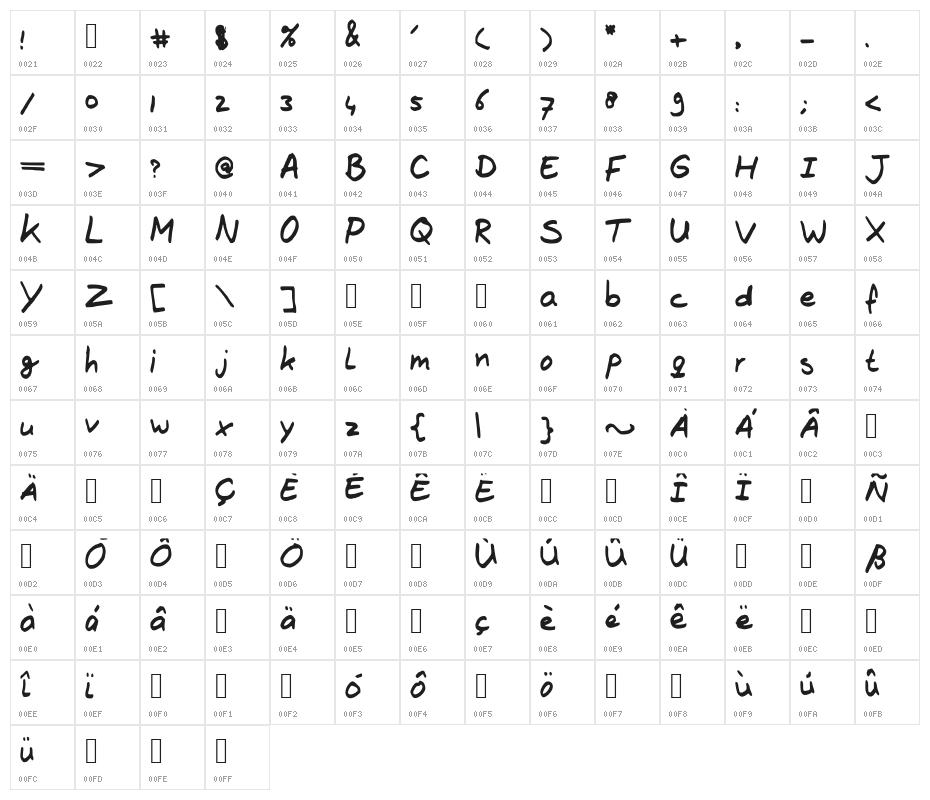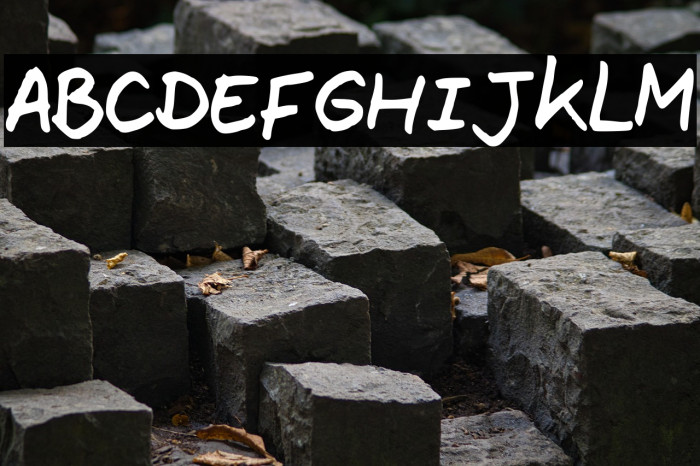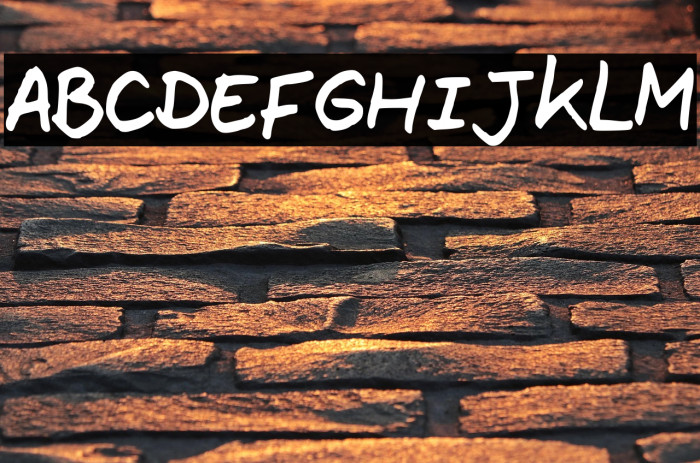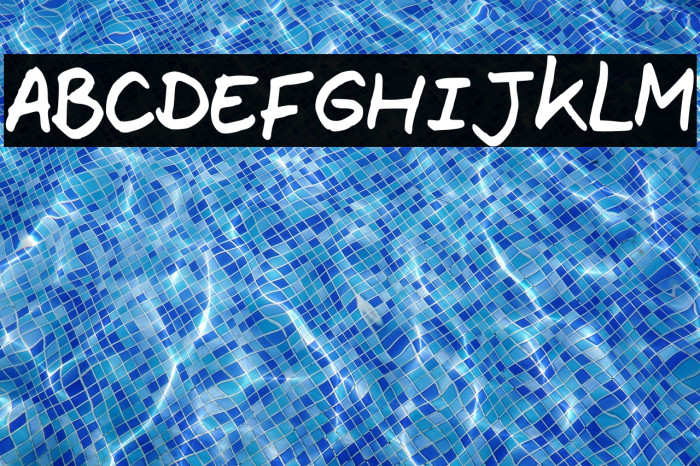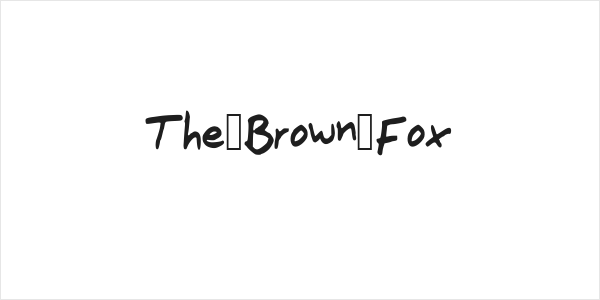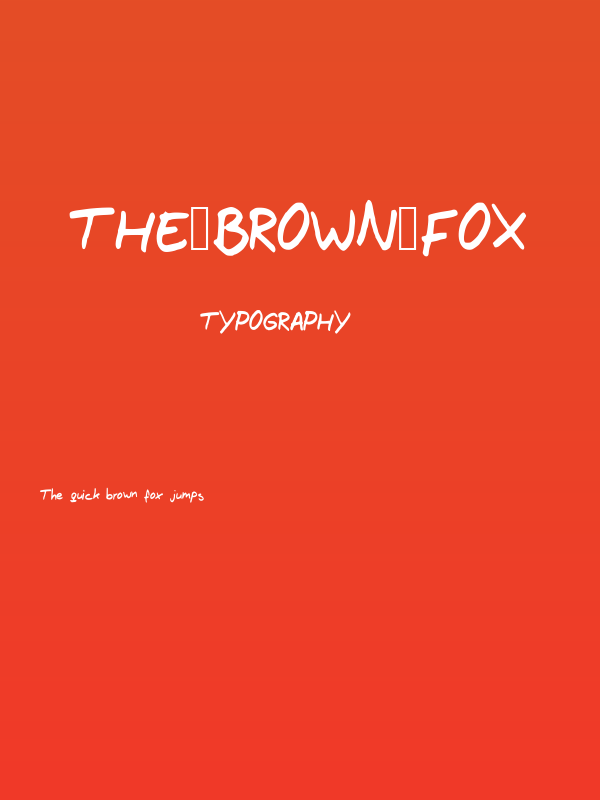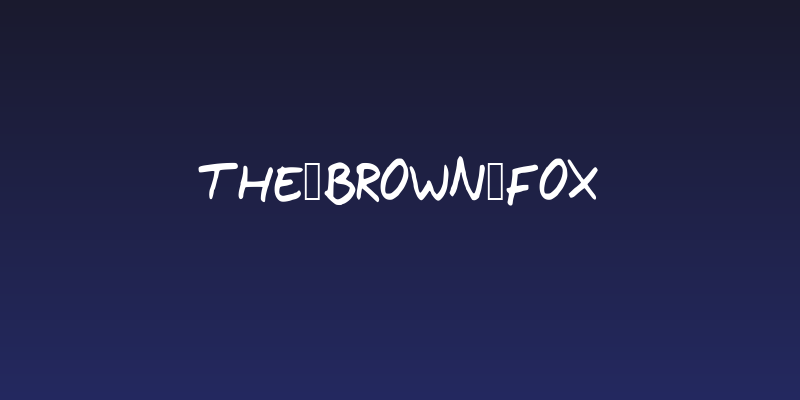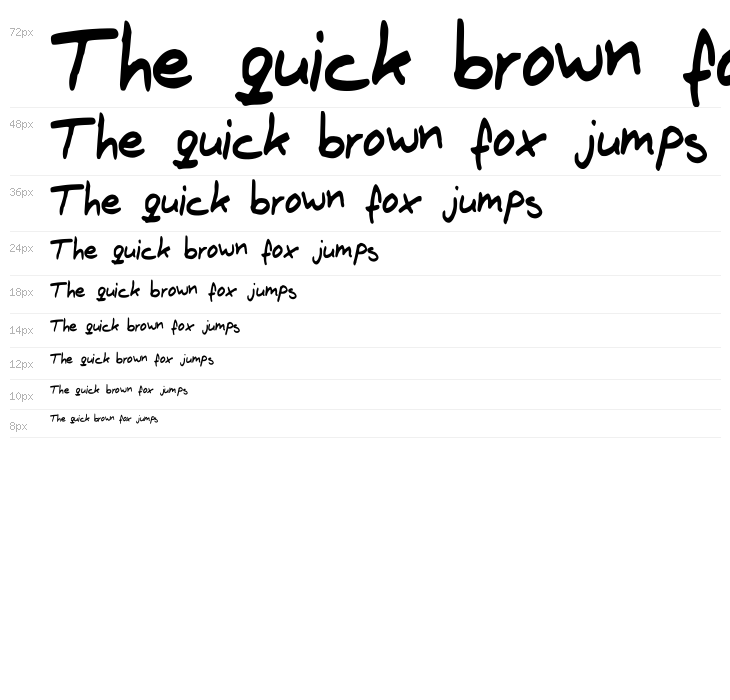
The_Brown_Fox Font
The_Brown_Fox Description
This font features a playful, handwritten style with a casual and informal appearance. The characters are slightly irregular, giving it a personal and organic feel. The strokes are bold and rounded, with a consistent thickness throughout, providing a uniform look. The uppercase and lowercase letters maintain a cohesive style, while the numerals and special characters complement the overall design. This font exudes a friendly and approachable vibe, making it suitable for creative and informal projects.